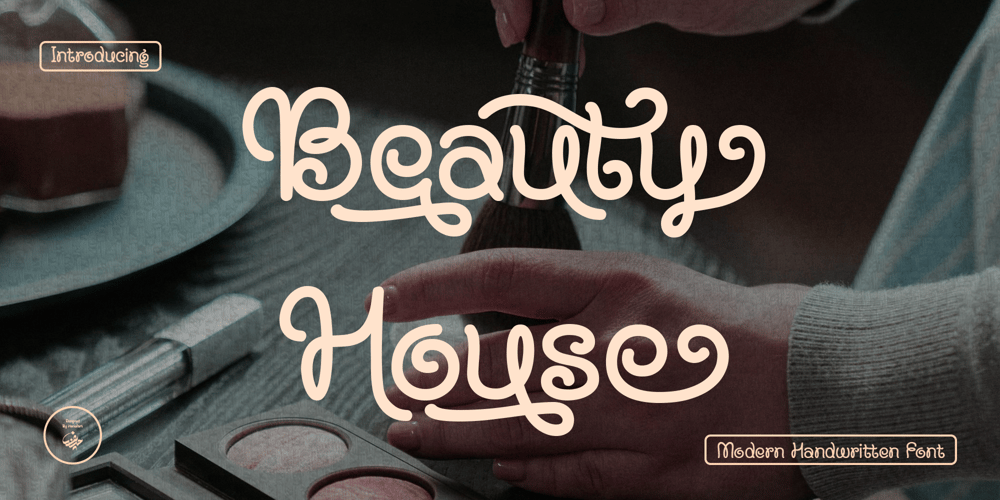
Beauty House Font Family was designed by Hanif Maulazi and published by Haniefart. Beauty House contains 1 styles and family package options. Beauty House is a modern style handwritten font, intricately designed with a distinctive swirl structure. This font features the entire character set of uppercase, lowercase, numbers, and punctuation, as well as the addition of alternates and ligatures. Beauty House is perfect for a wide range of needs, whether it’s injecting sophistication into branding, enhancing the brand appeal of clothing and products, enlivening print media such as posters, magazine and book covers, or evoking emotion in greeting cards and wedding invitations. This also gives an edge to the comic and gives a different touch to the business card. With its beautiful swirl structure, Beauty House truly serves as a luxurious asset for a variety of creative projects.